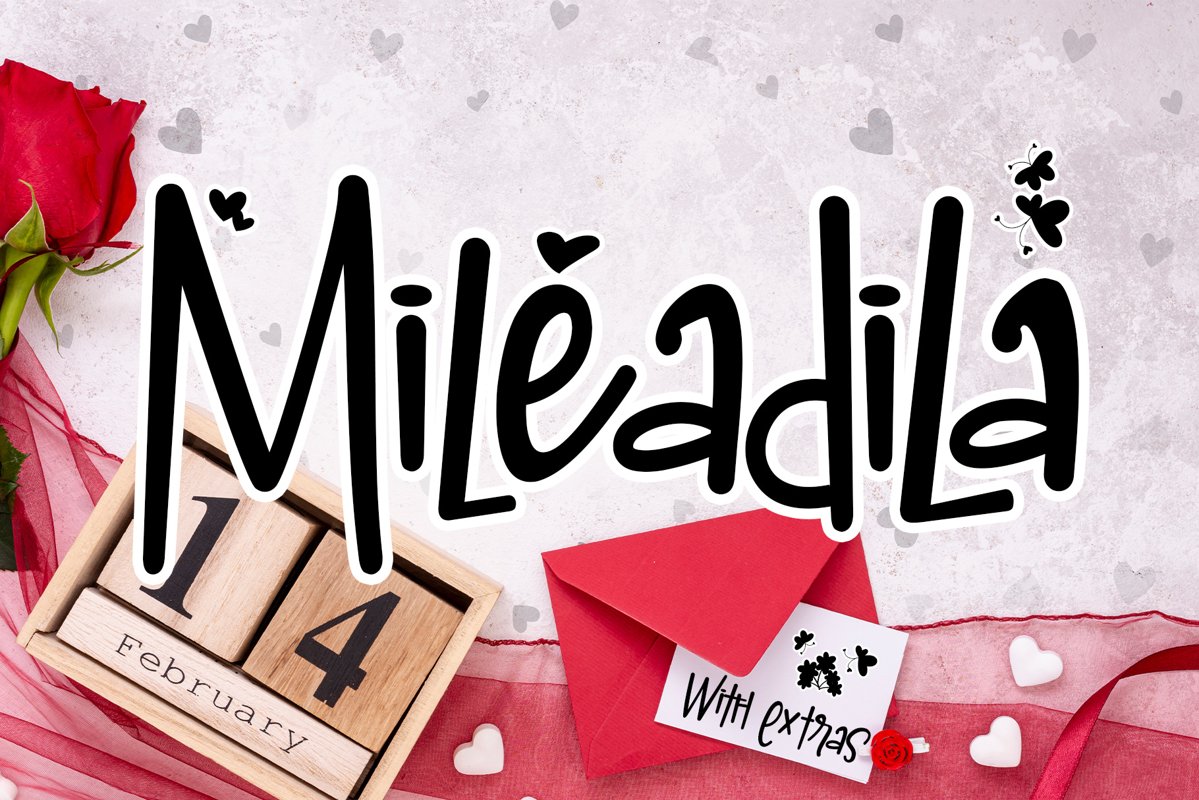
Mileadila is a sweet and simple display font
that’s perfect for adding a romantic charm to your next Valentine’s day project
and that will turn any design project into a true standout.